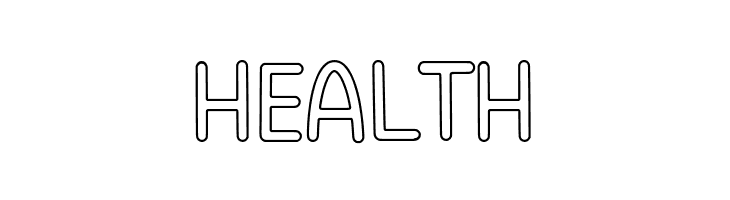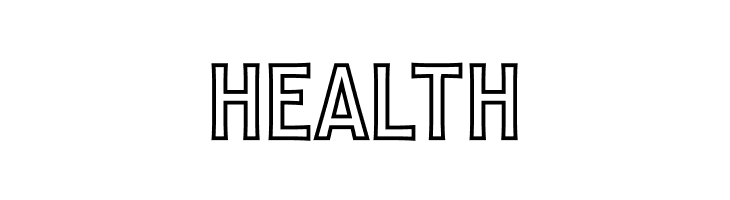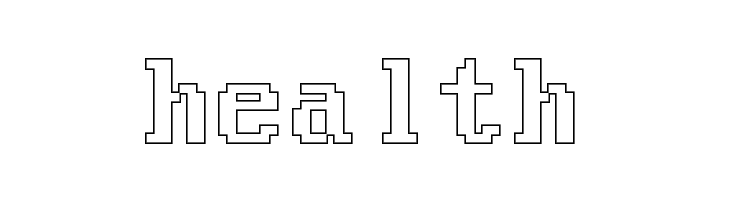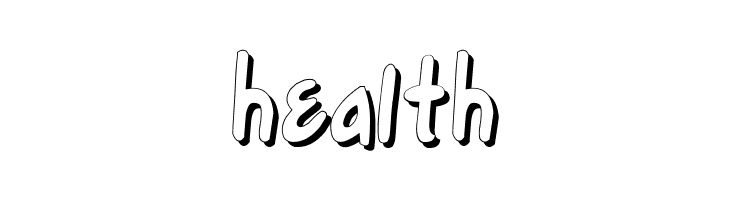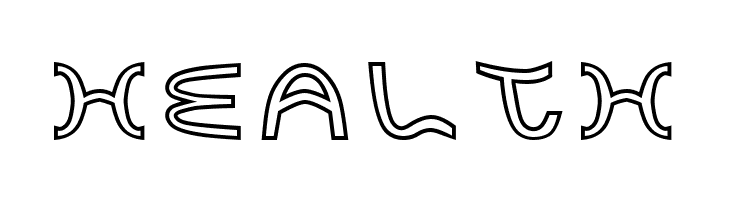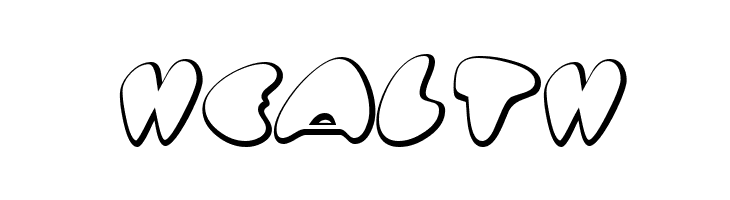
A bold, outline-style font with uppercase letters and geometric elements.
( Eric Perlin )
A playful outline font with a bold, double-line effect.
A bold, outlined geometric font with a modern and structured appearance.
A modern outline font with geometric, hollow letterforms and rounded edges.
( Fonts by Daymarius )
A pixelated, outline-style font inspired by classic DOS-era graphics.
( koeiekat - koeiekat.com )
A modern, outlined font with bold, geometric characters.
A bold outlined sans-serif font with a modern and clean design.
A bold, three-dimensional outline font with a modern and futuristic style.